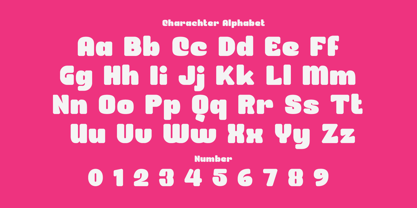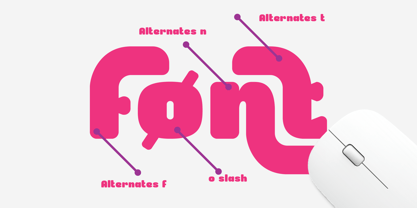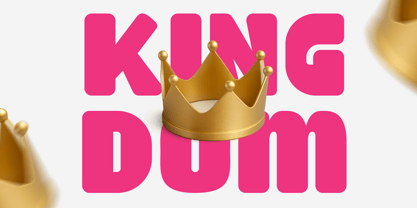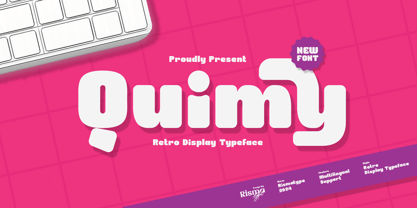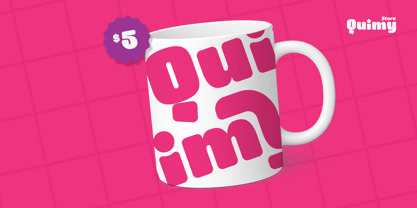
Quimy
by Risma Type
The Quimy Font Family was designed by Risma Mulyasari and published by Risma Type. Quimy contains 2 styles and family package options.
# 🧡 Quimy
Category: Retro Display Typeface (Bold Nostalgia Meets Playful Charm)
---
## 🌈 A Throwback Typeface with Fresh Personality
Searching for a font that’s bold, full of character, and dripping with retro flair?
Say hello to Quimy — a retro display typeface that blends vintage soul with modern boldness. Inspired by the funky curves of the ‘70s and playful type of old-school signage, Quimy brings a burst of joy and nostalgia to any design.
---
## 🔑 Key Features
* 🍊 Thick and curvy letterforms with a groovy attitude
* 🧷 Funky retro vibes with strong visual impact
* 🌍 Multilingual support (Latin Extended + Alternates)
* 🎯 Perfectly balanced for both print and digital use
---
## 🎯 Perfect For
* 🪩 Retro branding & vintage packaging
* 🎞️ Poster art, album covers & film titles
* 🍭 Café menus & product labels
* 📣 Eye-catching headlines & promo graphics
* 📱 Bold social media posts & throwback designs
> Quimy is your go-to font when you want to turn back time in style — it’s loud, proud, and always full of character.